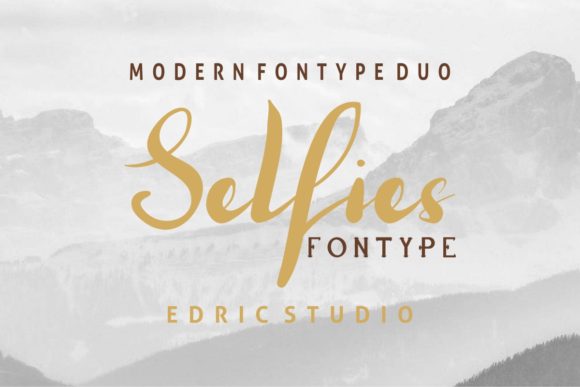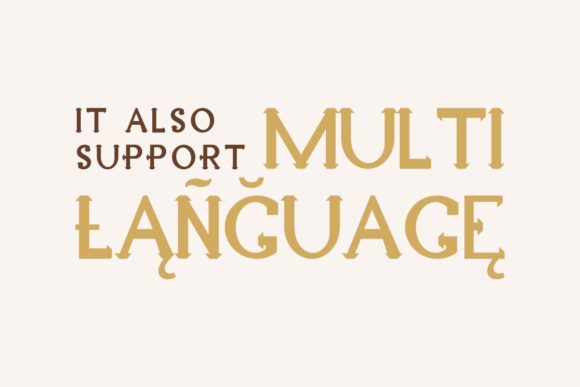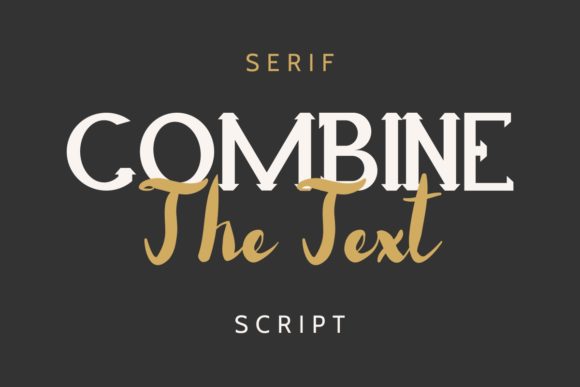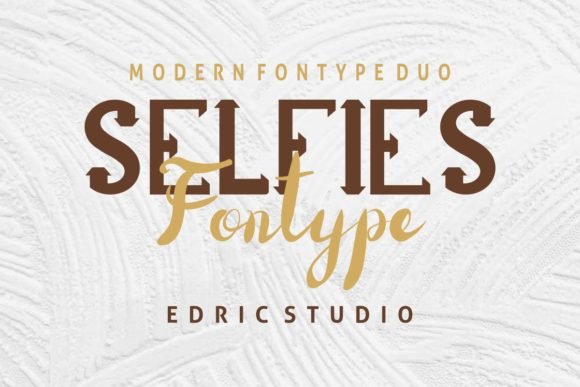
Introduction to Selfies Font
Selfies is a new modern font duo with a handwritten script and serif display font.
Both styles have a fresh and elegant appearance .
Key Features of Selfies Font